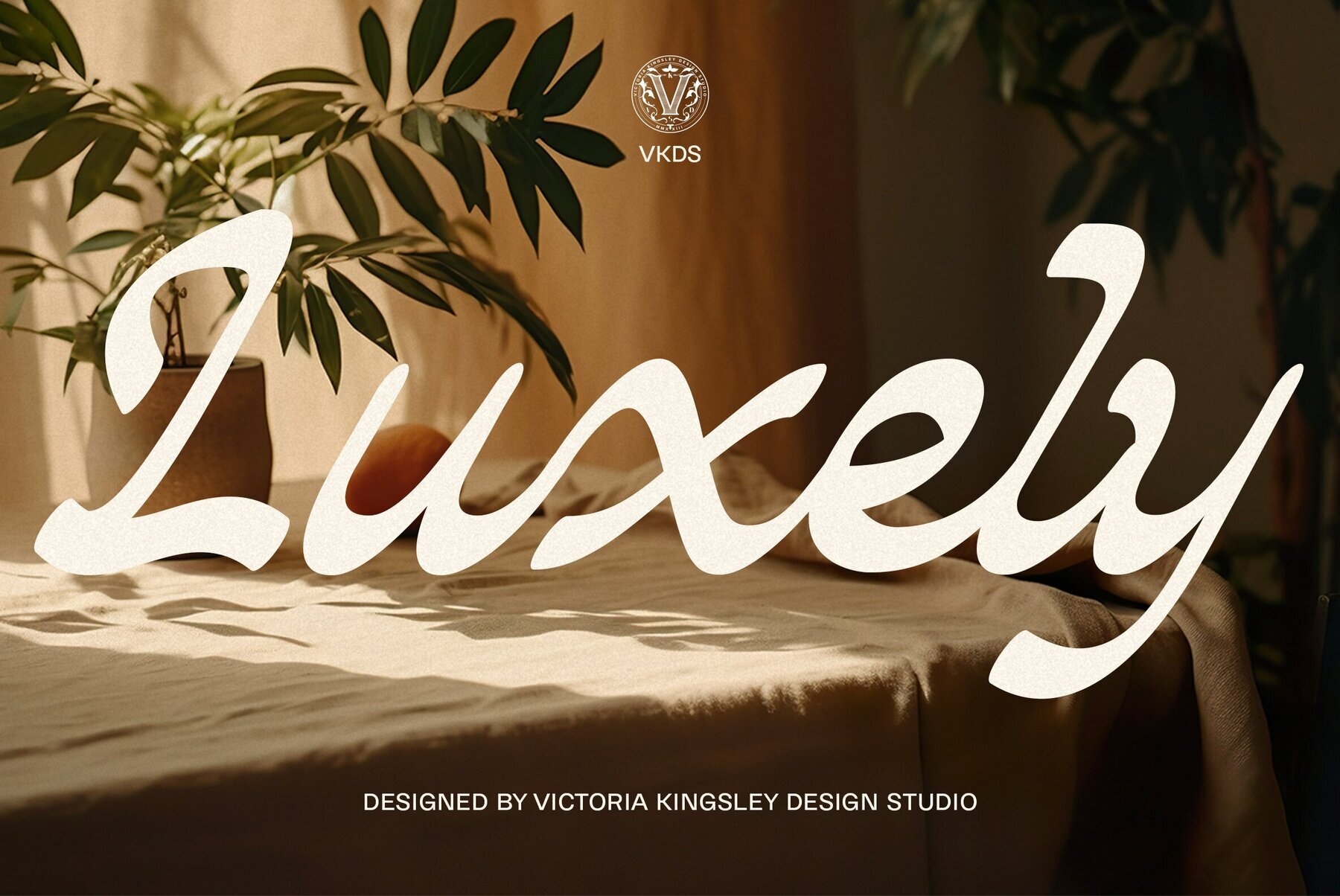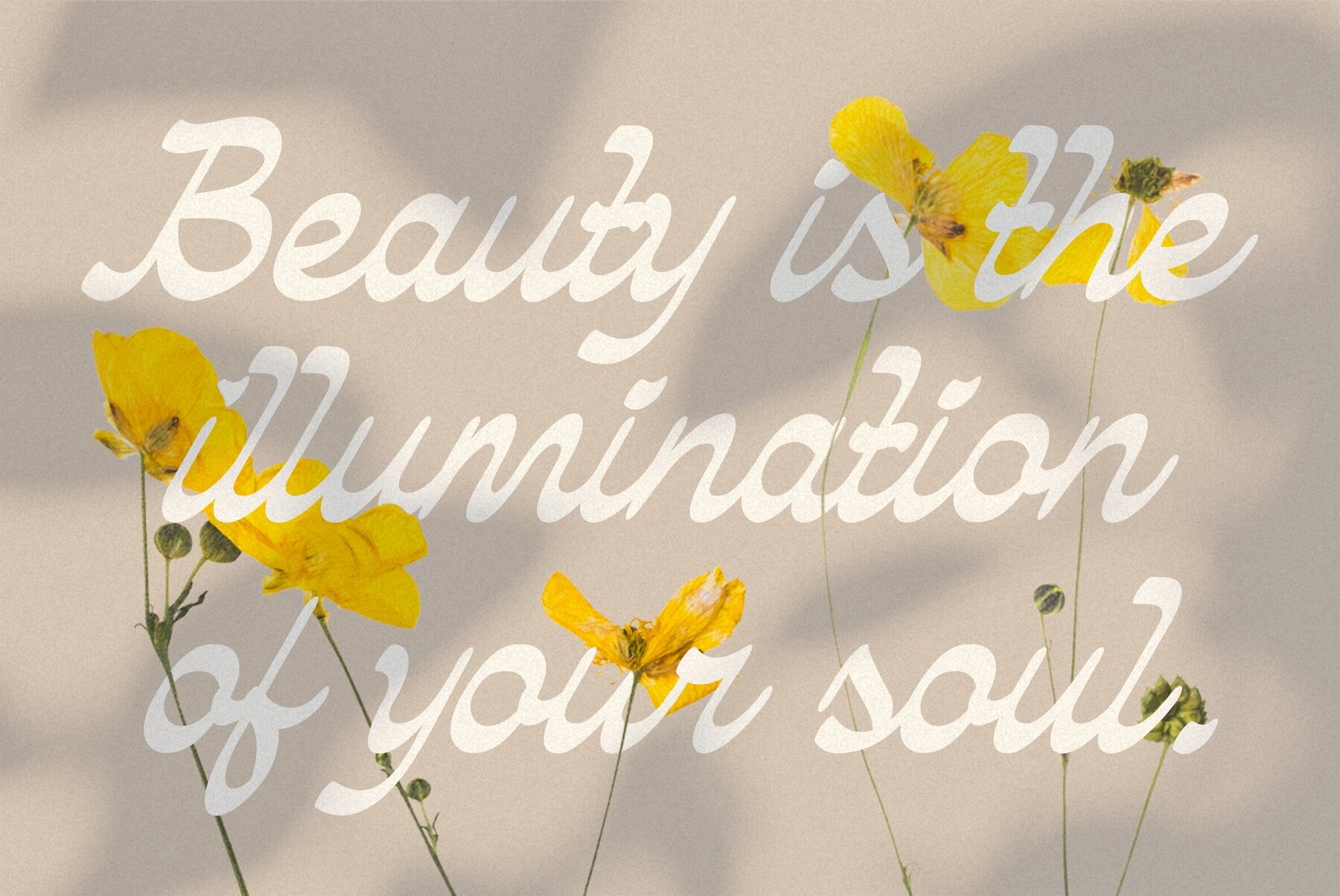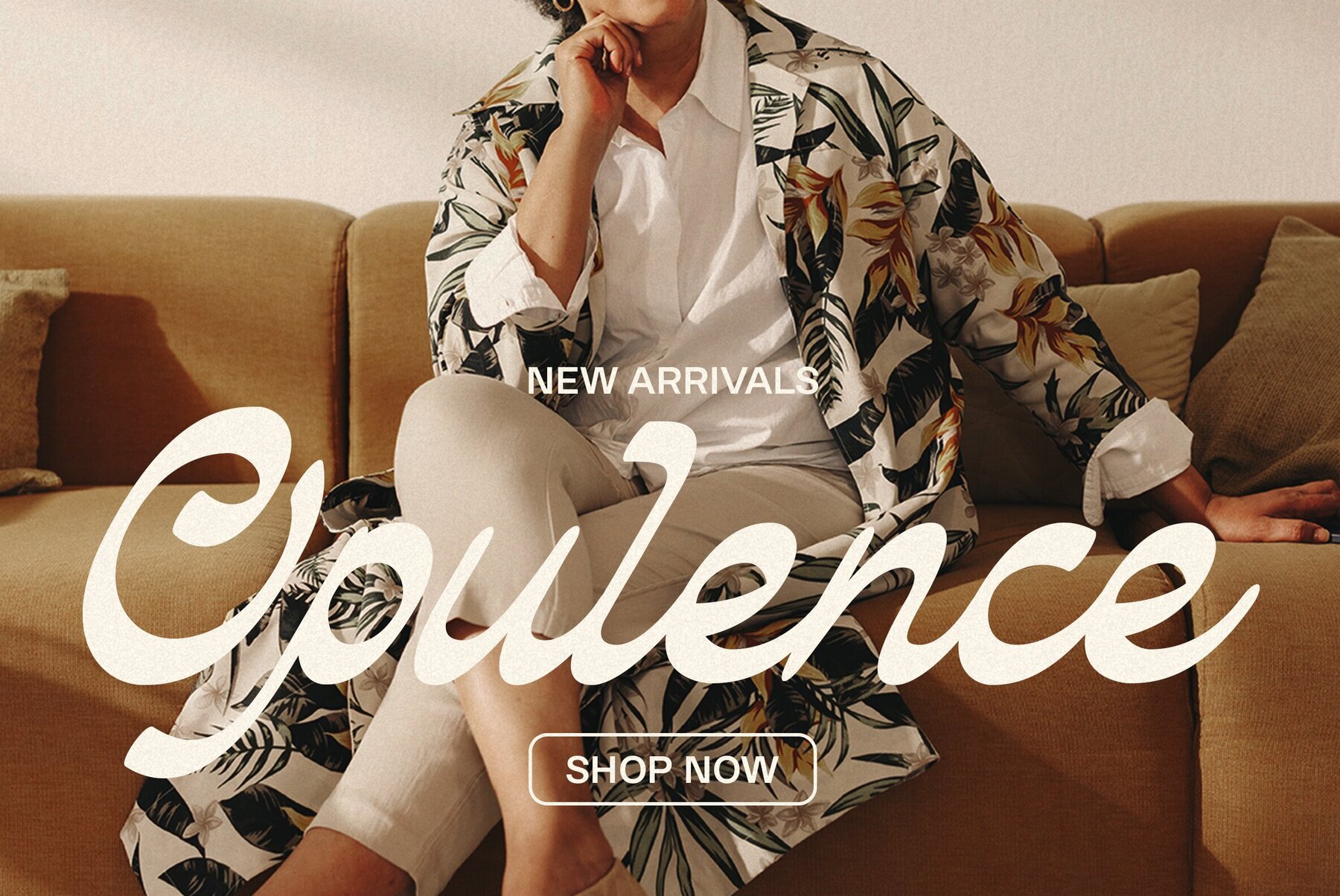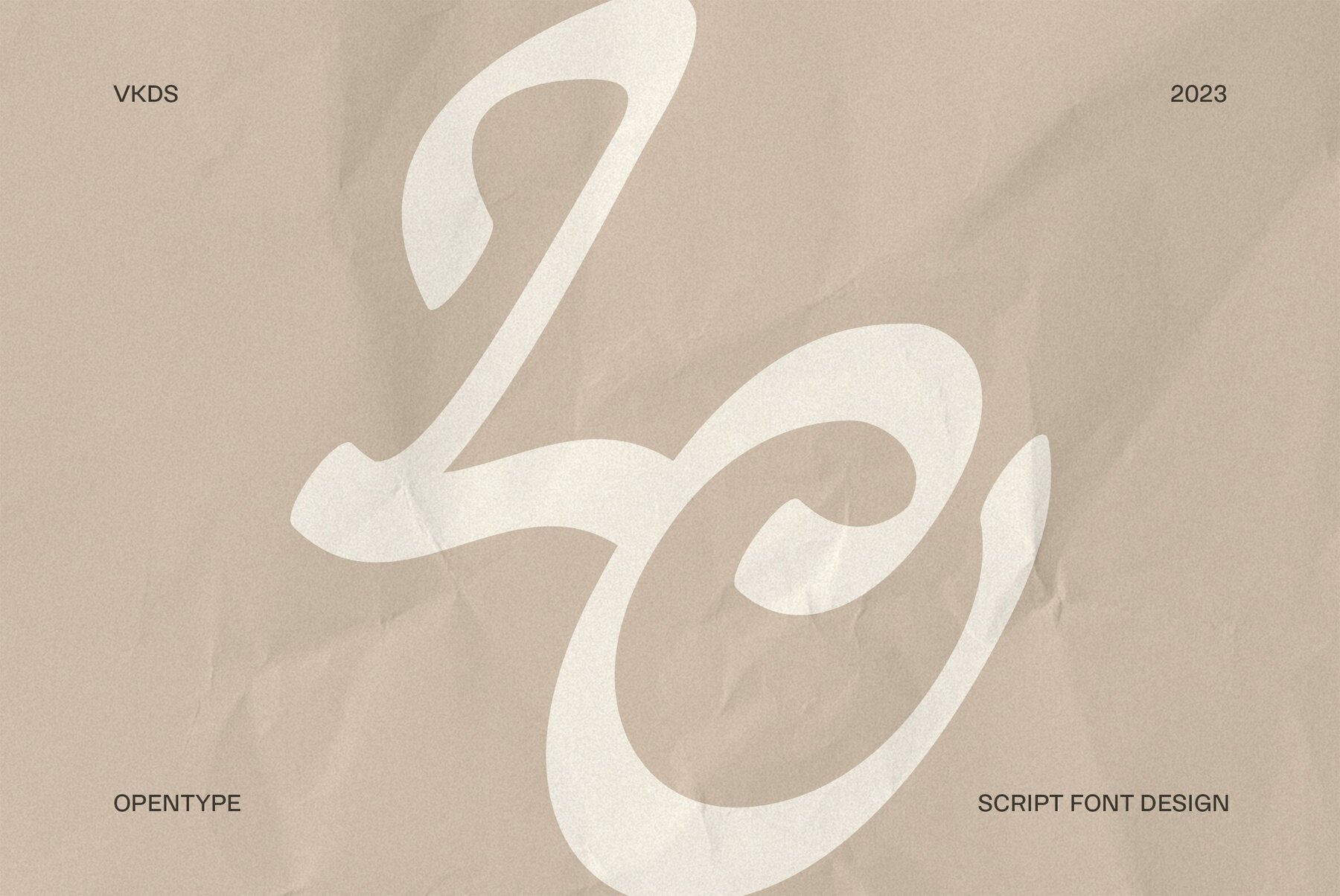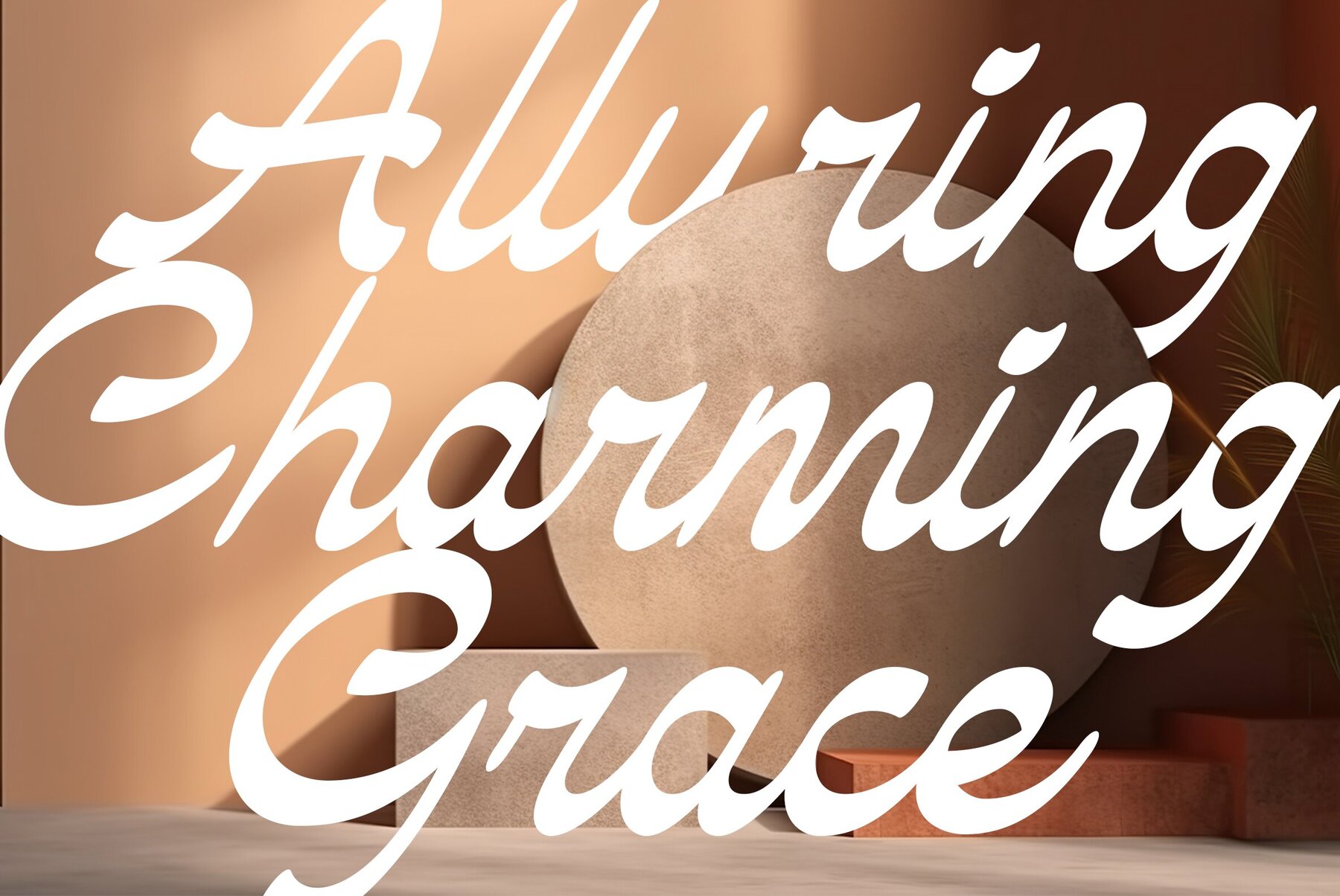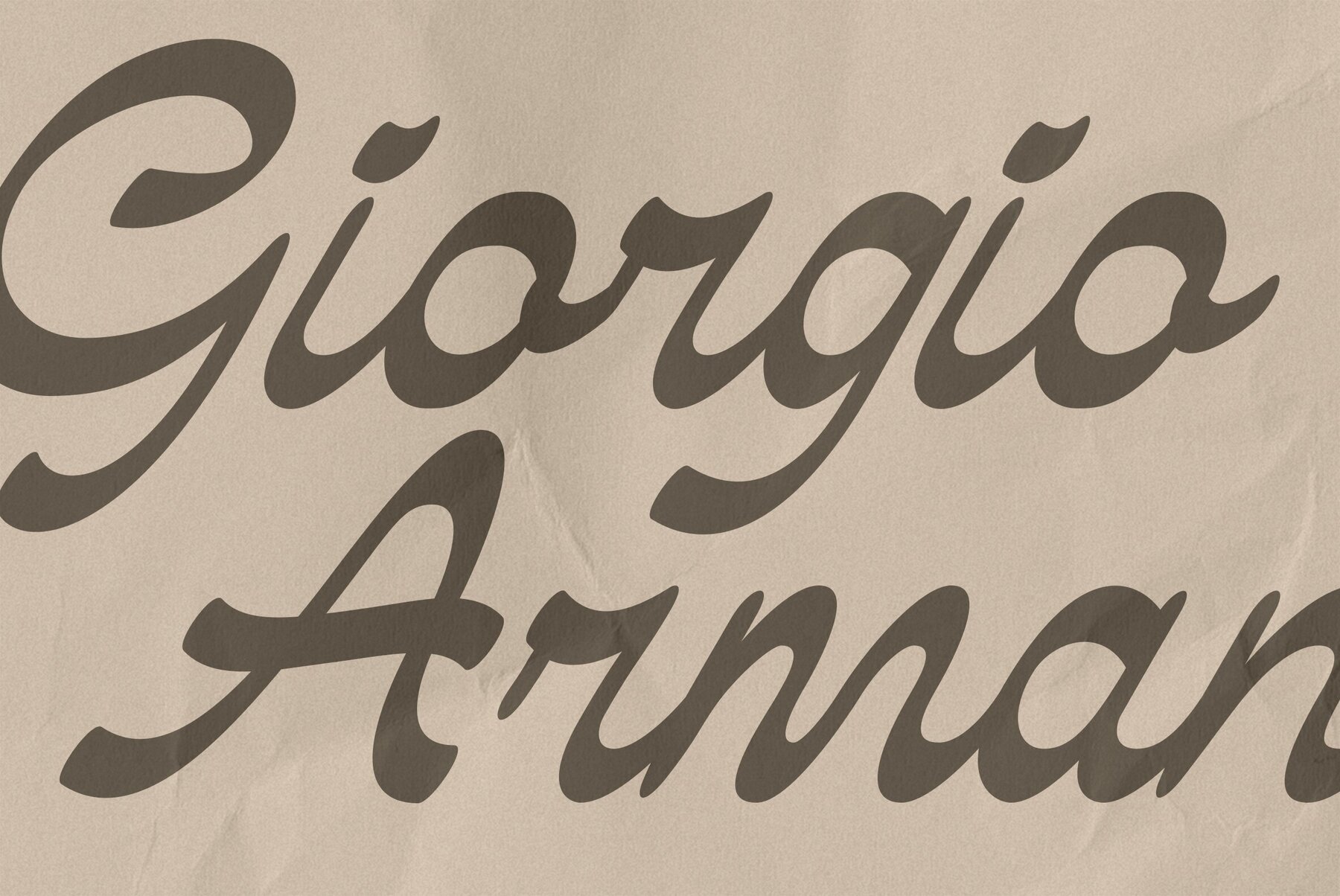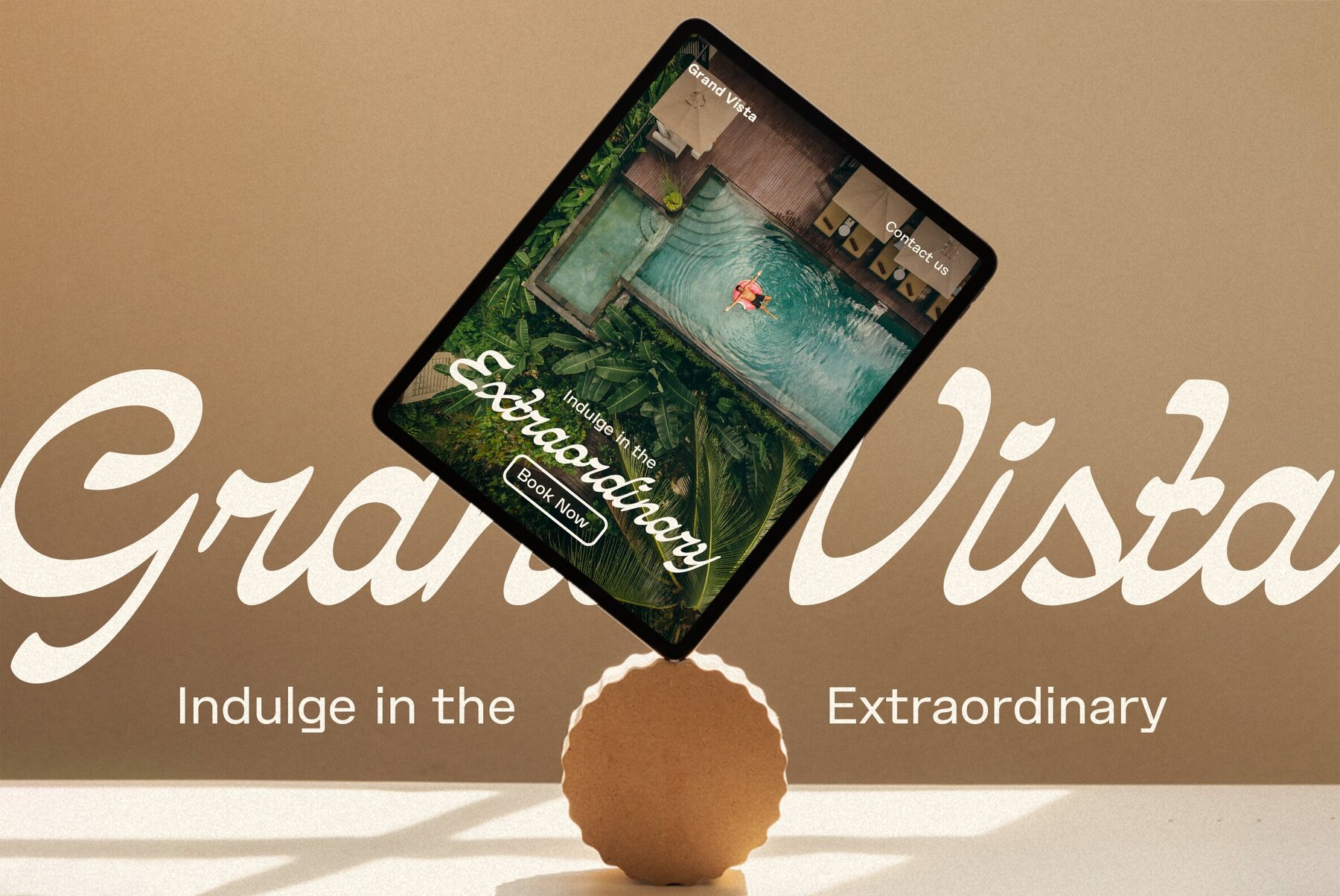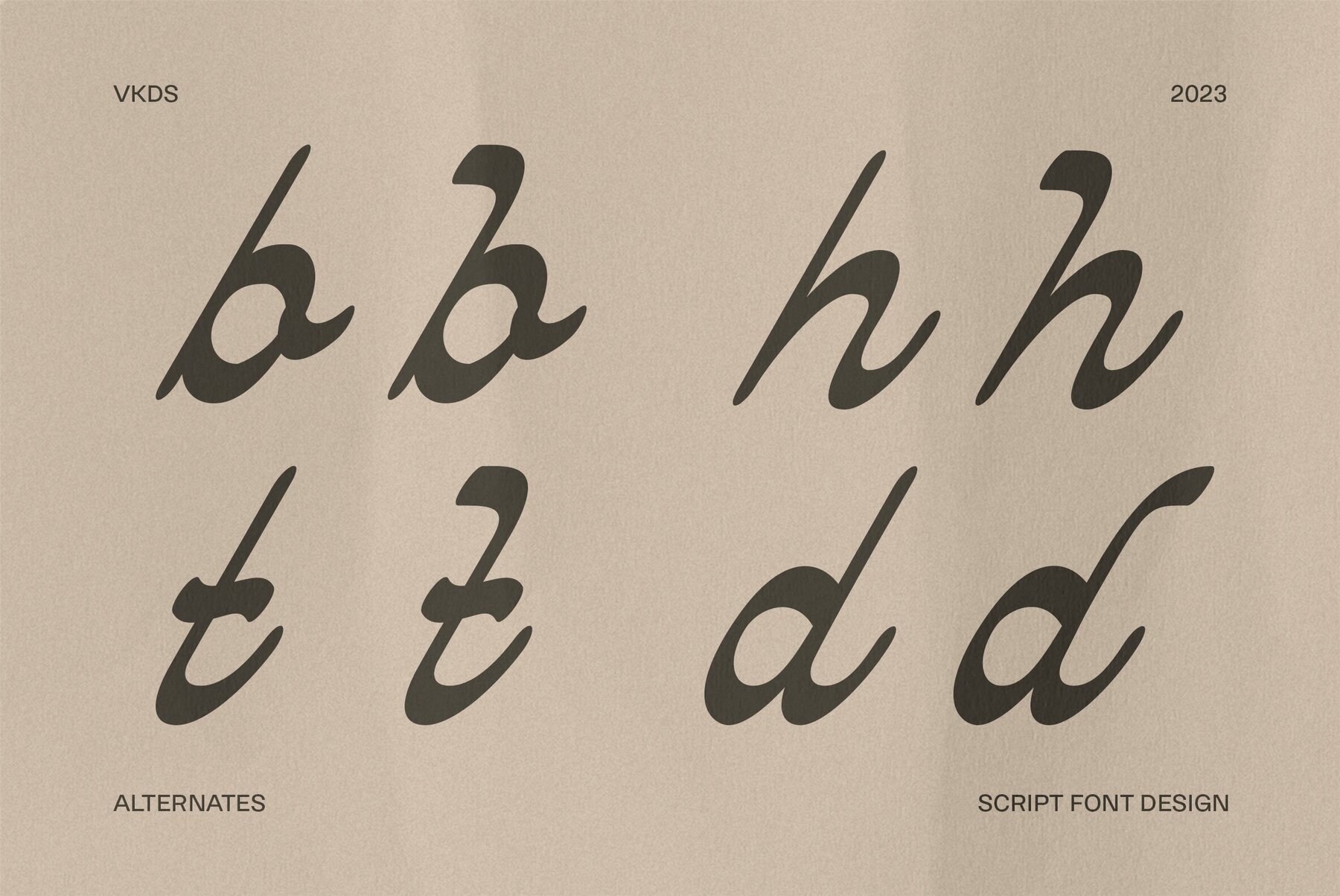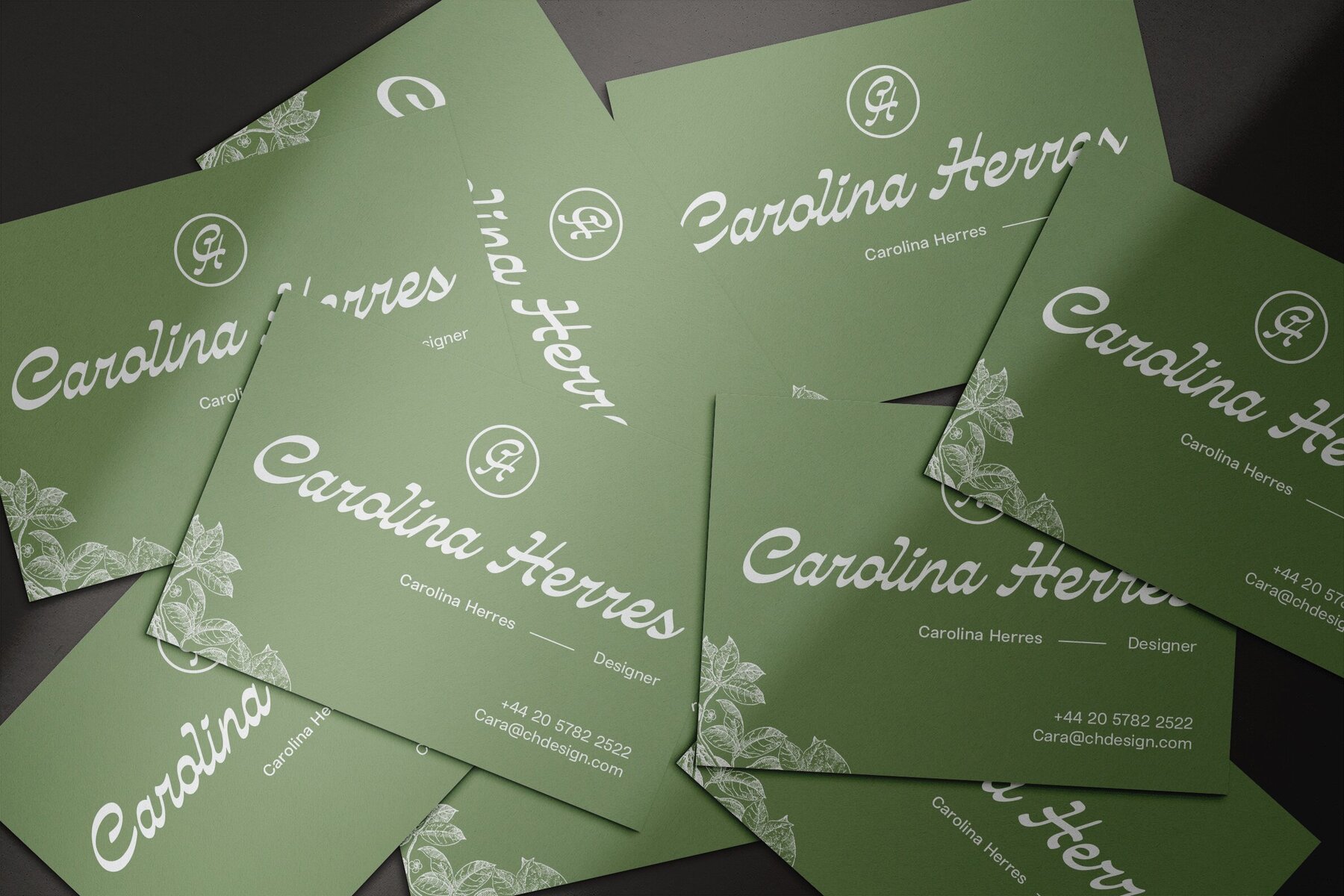
Luxely Font
Luxley Regular
Luxely isn't just a font; it's a sentiment captured in each curve and stroke. Developed by Victoria Kingsley Design Studio, it embodies a distinct European flair—think the streets of Paris or the canals of Venice—along with a rich humanist tone. It deftly combines these influences to create a font that feels both intimate and worldly, aligning perfectly with softer, more elegant fashion brands. One of Luxely Script’s most commendable attributes is its versatility. The typeface features a comprehensive glyph set of over 300 characters, making it adaptable for a variety of design needs. Whether you're working on a minimal social media campaign or a luxurious print catalog, this typeface offers a myriad of design possibilities without compromising on style. The typeface doesn't just stop at aesthetics; it also delivers on functionality. It comes packed with various OpenType features that allow for enhanced customization. It's not just a font, but a toolkit, providing you with the flexibility to execute your design vision effortlessly. Additional products used for slideshow images:A Typeface with Humanist Undertones
Versatility in Design
OpenType Features for a Customized Experience